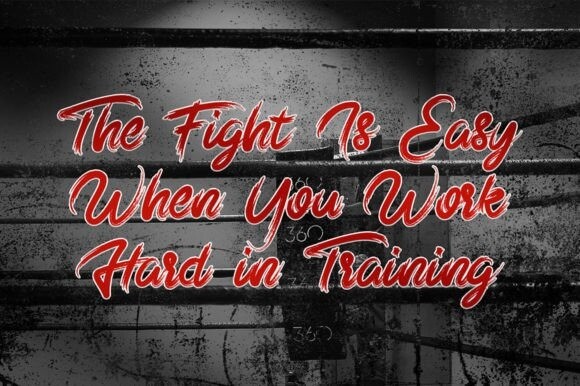
Rumble in Jungle Font
Rumble in Jungle Brush Font is a gorgeous and bold brushed handwritten font, crafted to give your headlines and logotype projects a stylish touch. With a street urban style, youthful theme, and a sporty, masculine accent this font is perfect for displays, titles, logos, packaging, crafts, labels, T-shirts, hoodies, tote bags, posters, stickers, quotes, and any advertising that needs energetic typography.